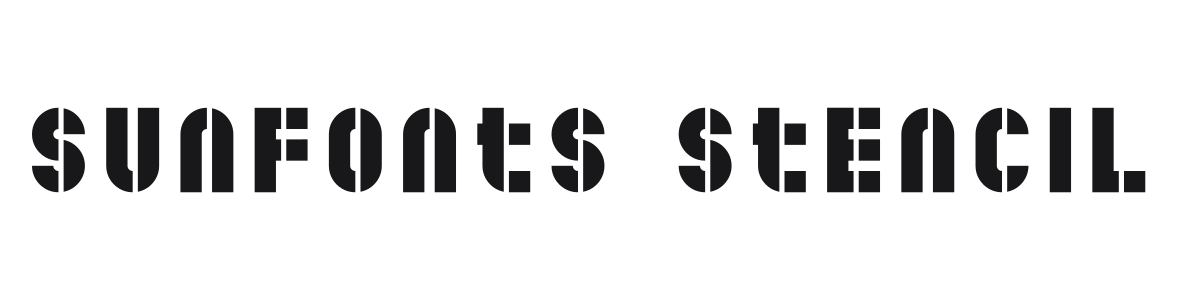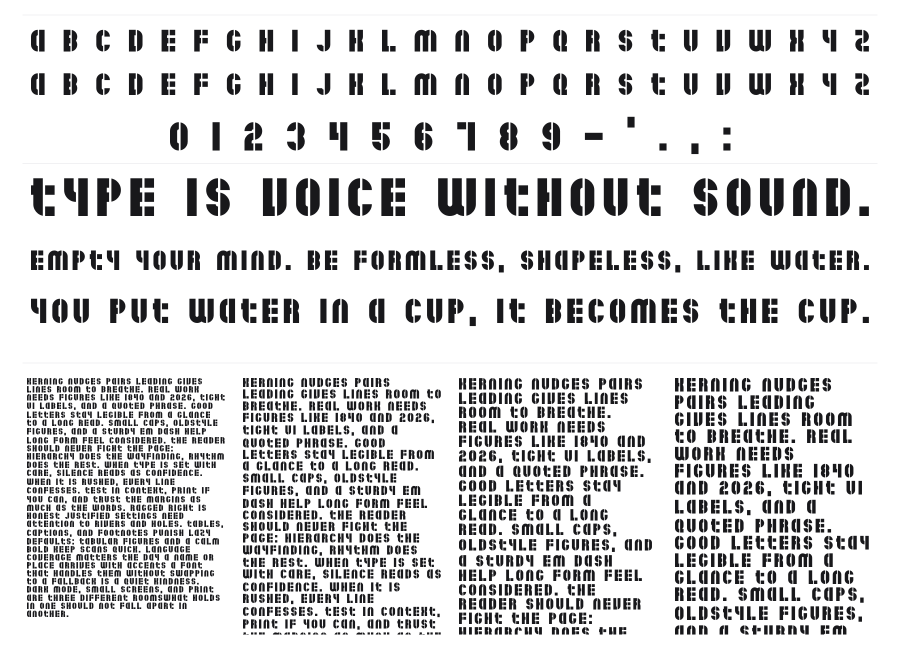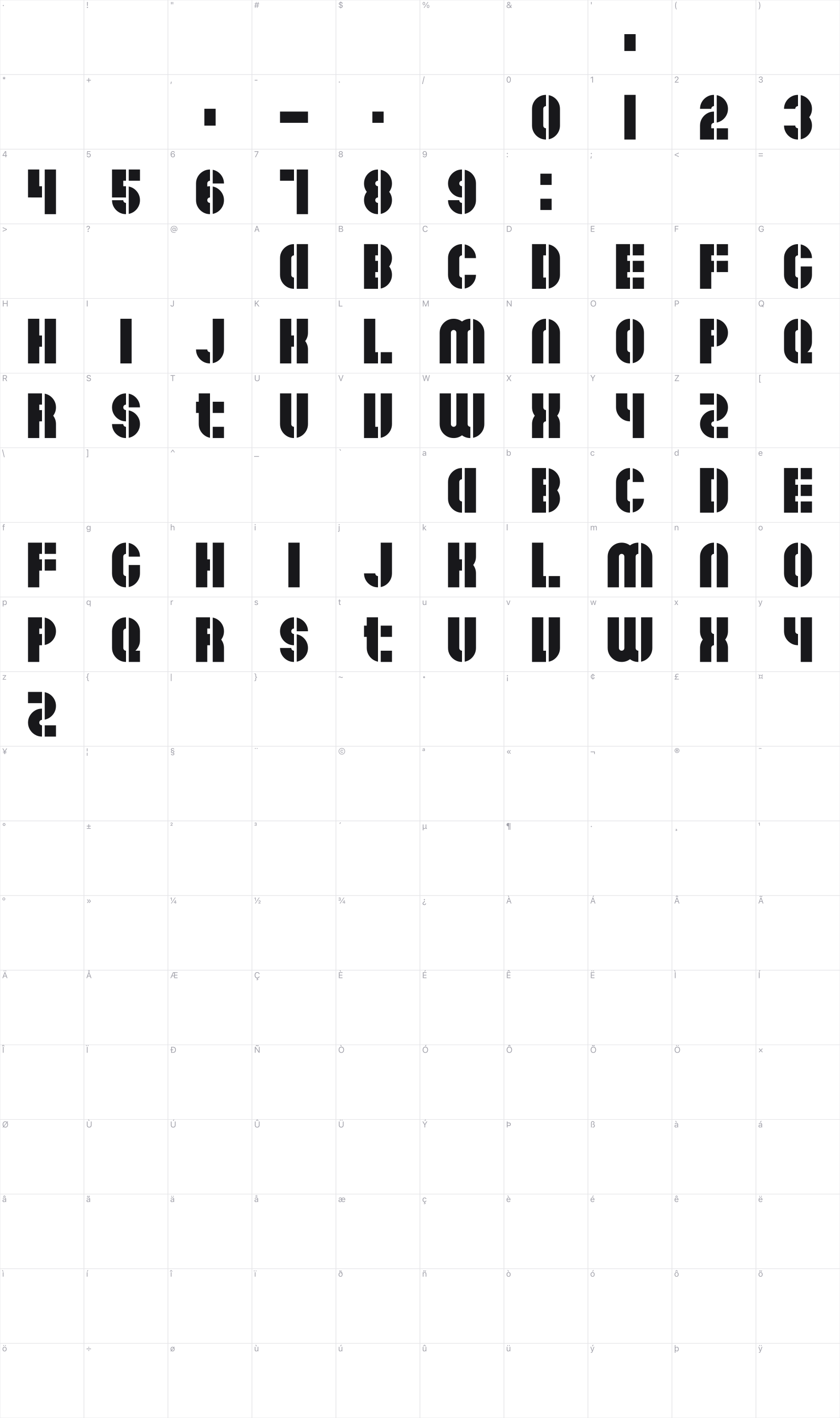
Sunfonts Stencil
Sunfonts Stencil is a heavy condensed stencil typeface with bold, blocky characters interrupted by the classic bridge cuts of spray-can lettering. Its tall narrow proportions and squared geometry give it a strong military-industrial edge. Works best at large display sizes for posters, packaging, and streetwear branding.